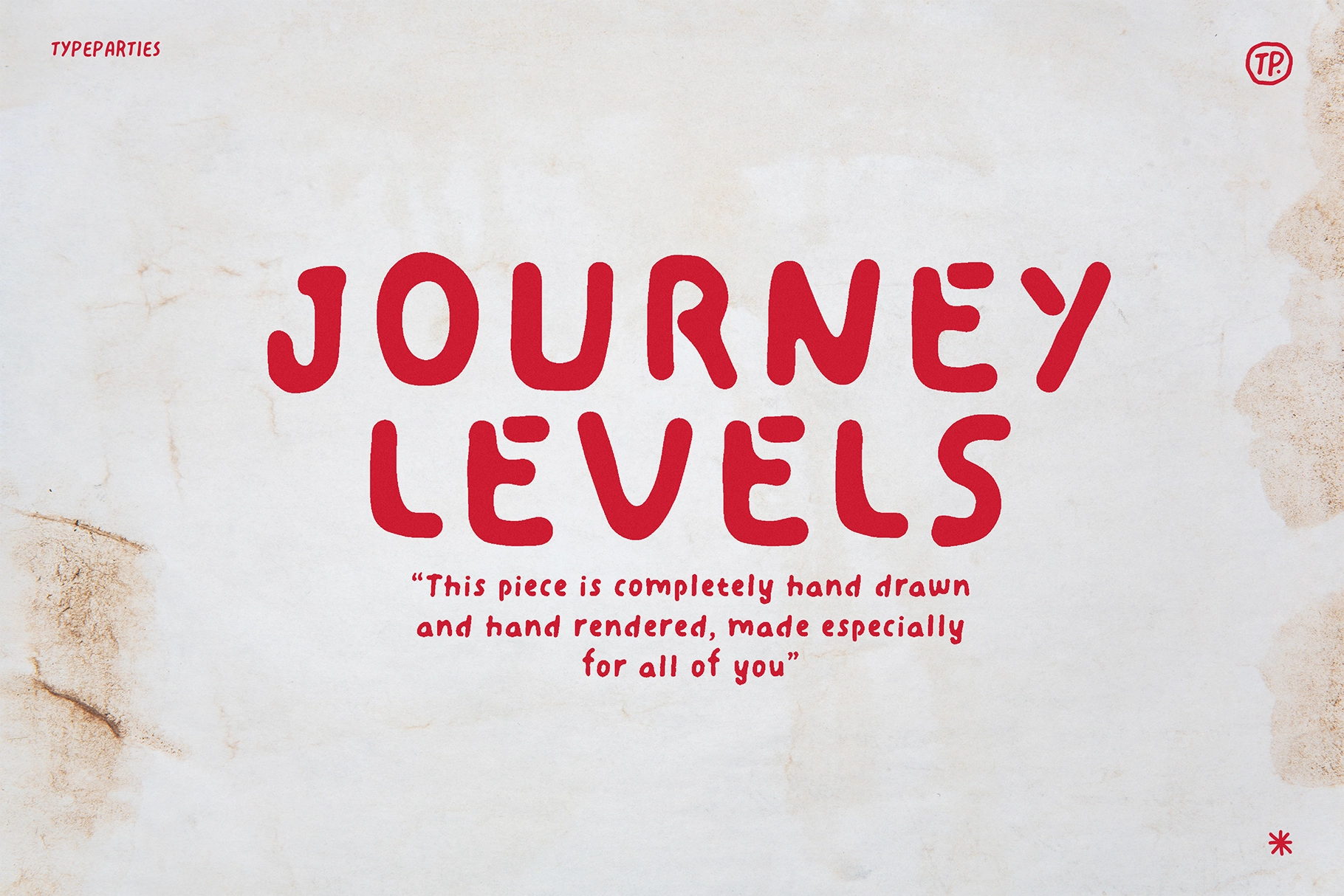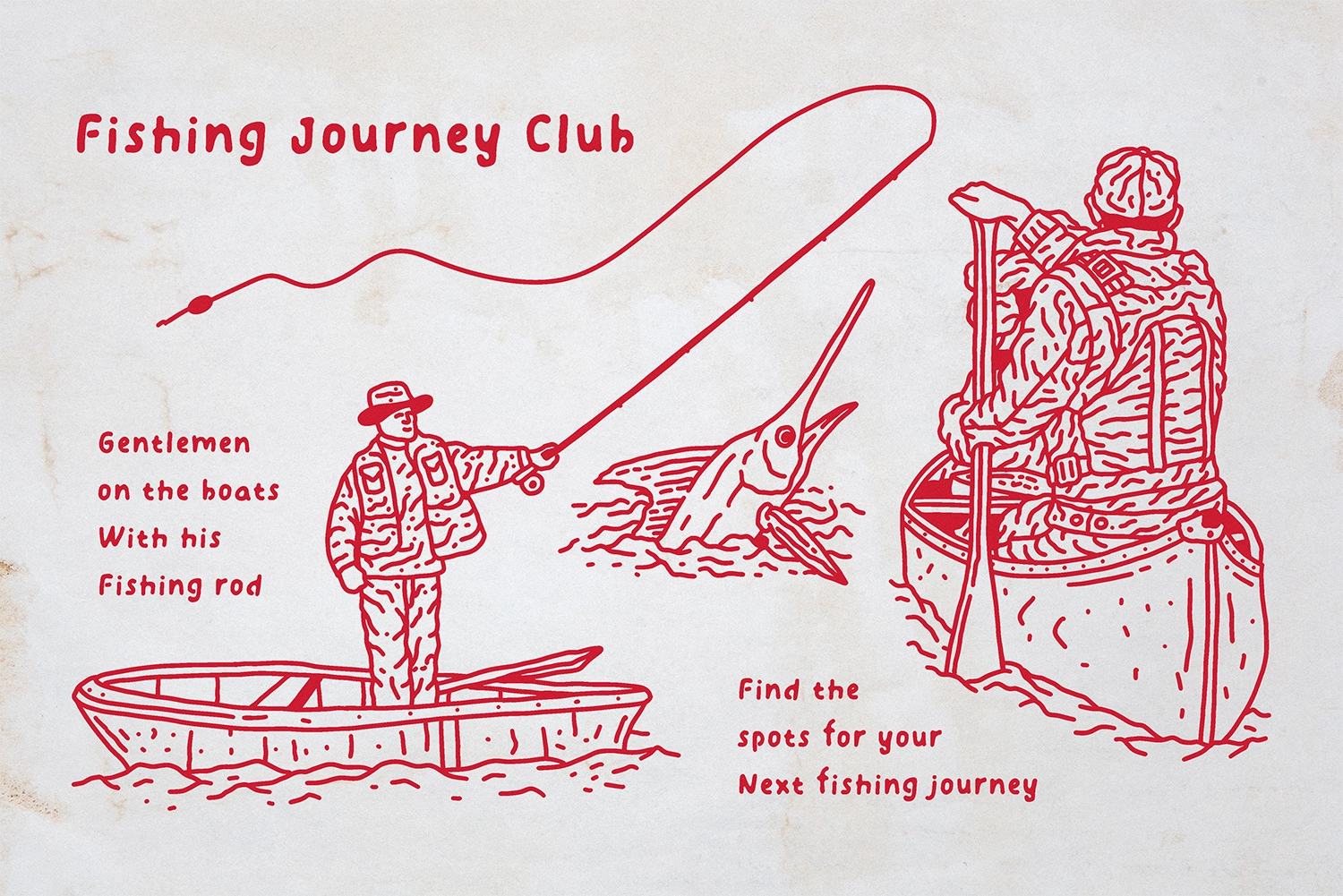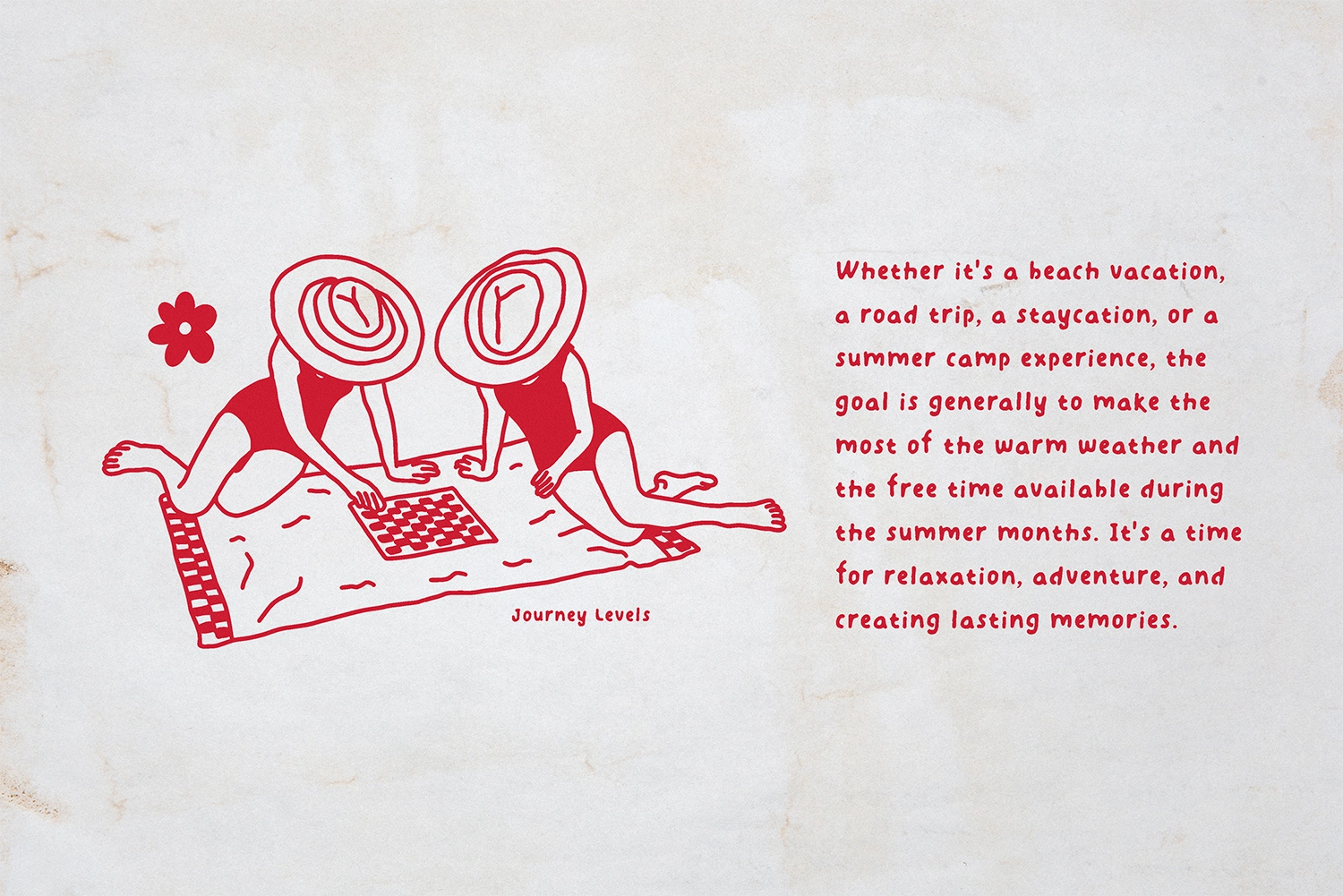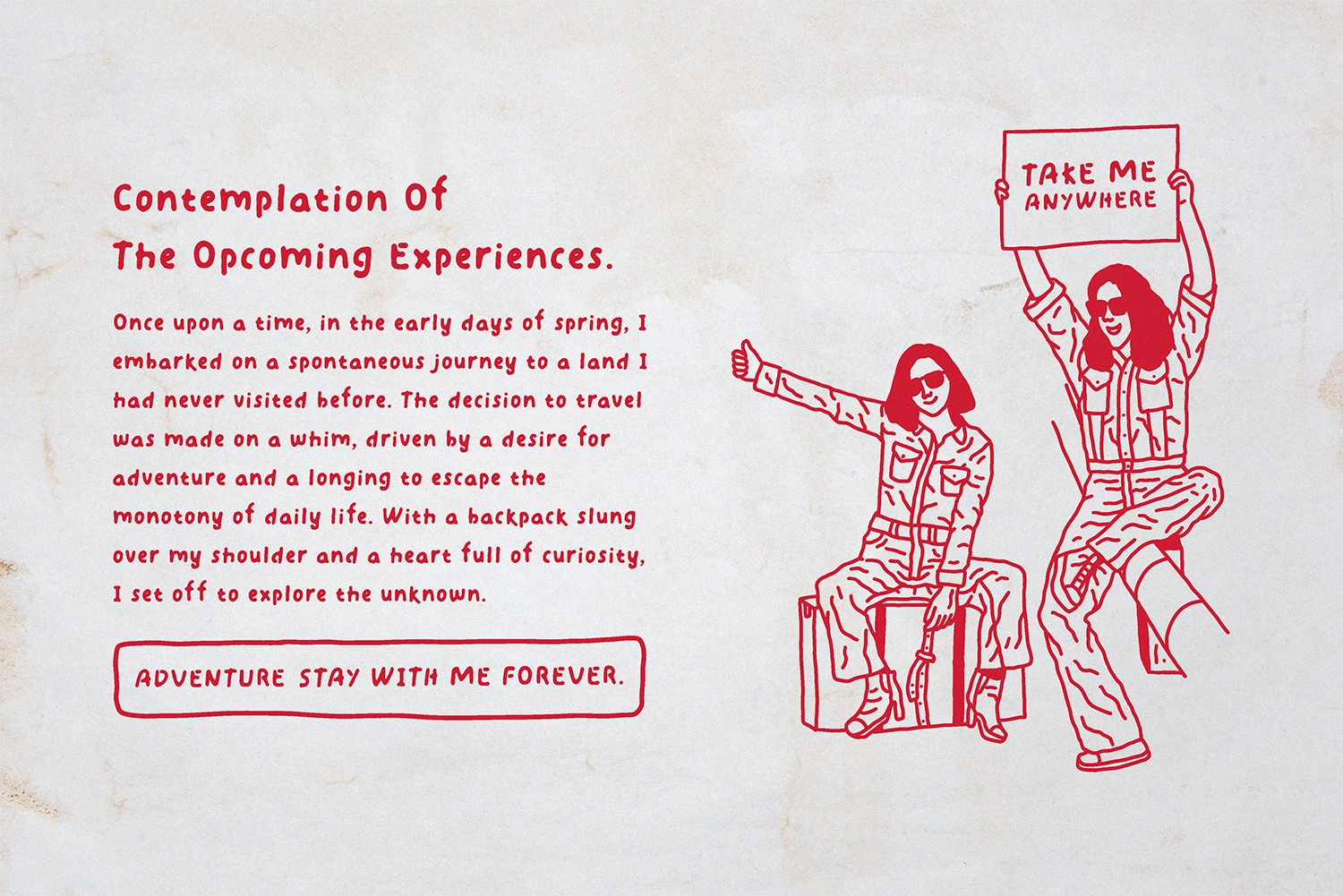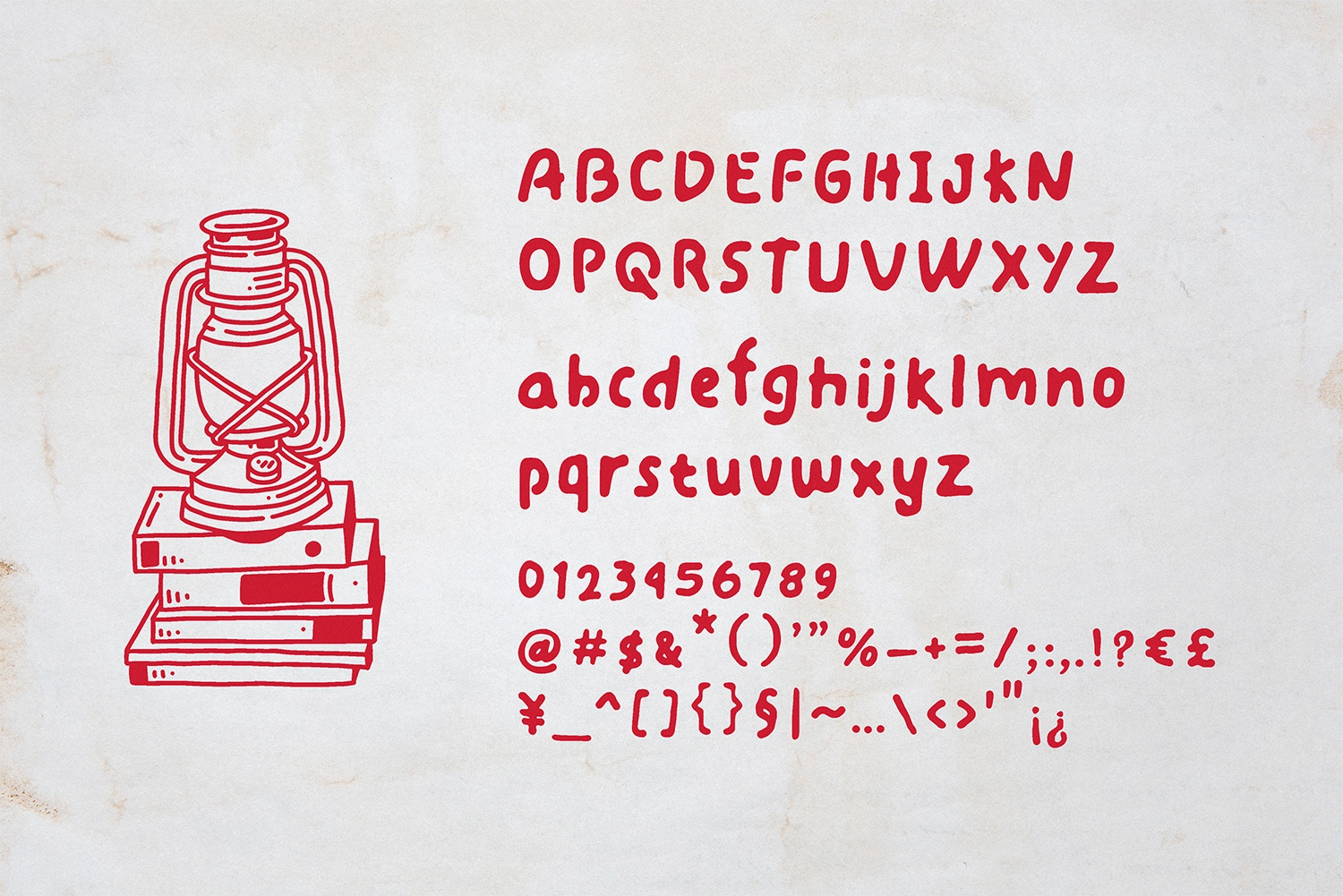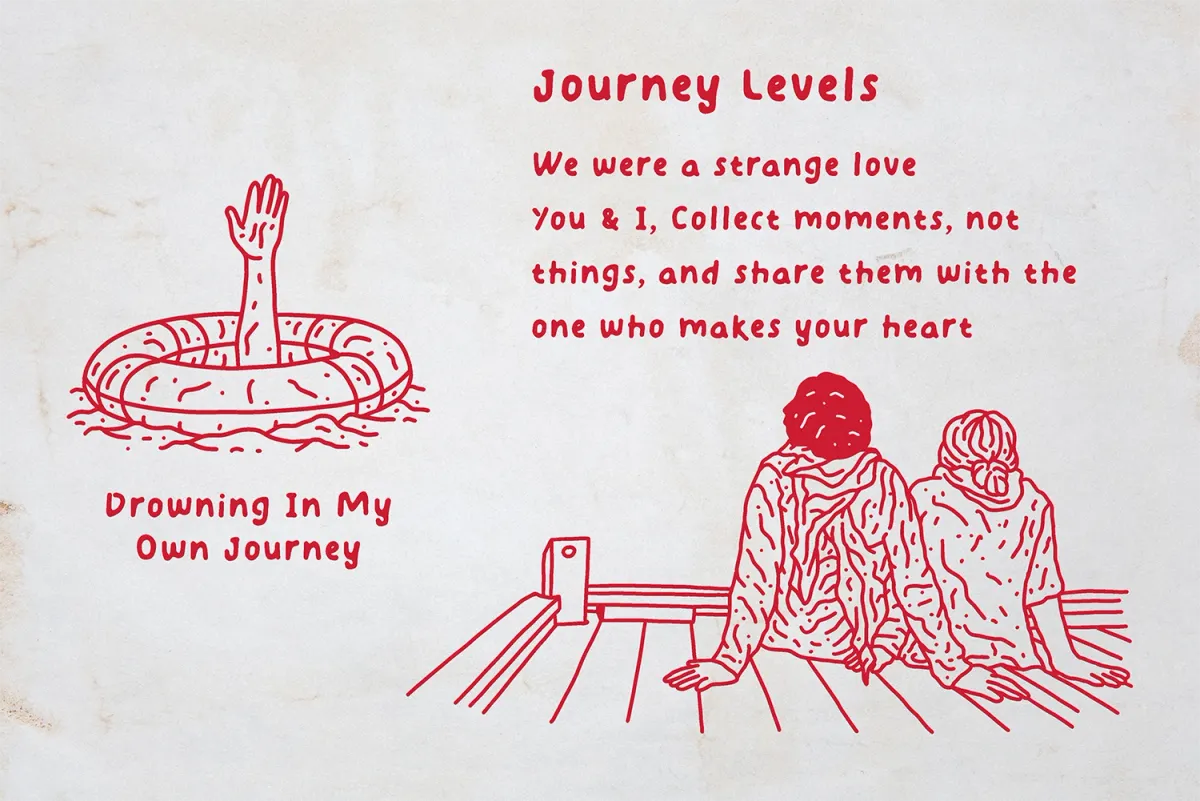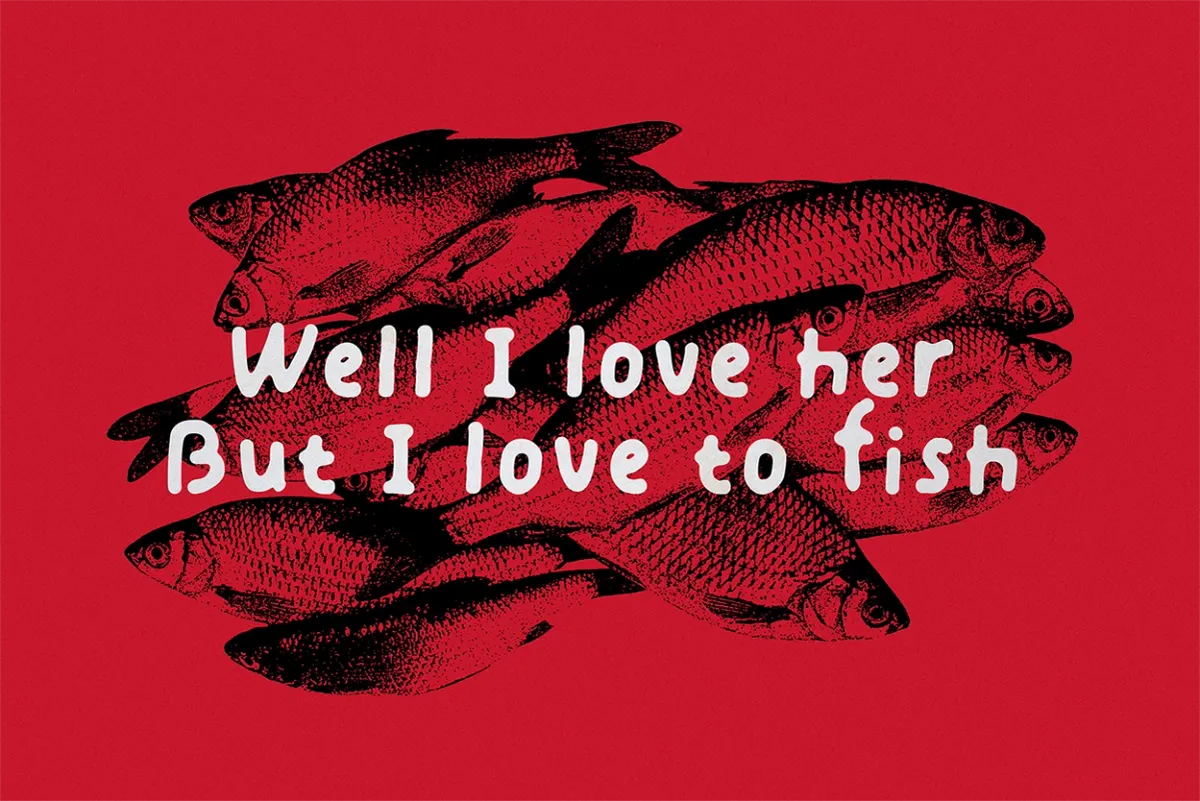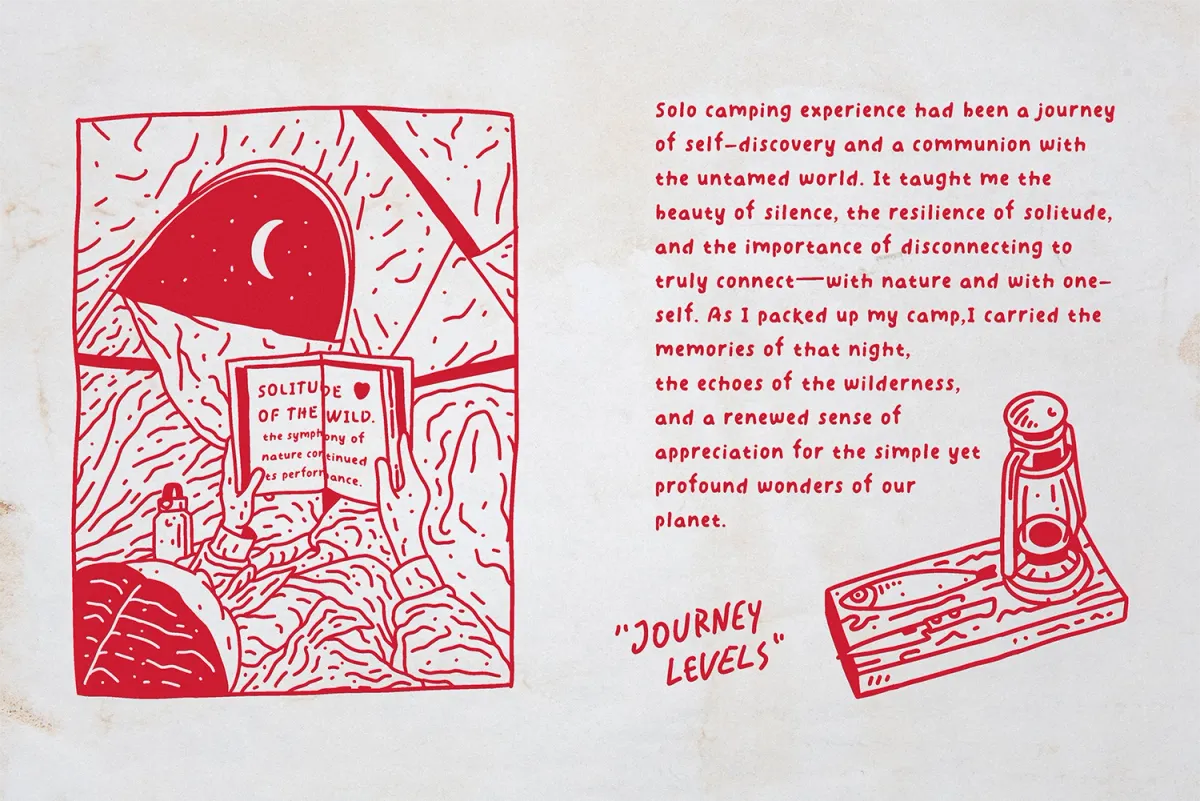
Journey Levels - Handwritten Font
This handwritten font called Journey Levels, exudes a warm and personal touch. With its soft, rounded edges and playful irregularities, it clearly reflects its hand-drawn and hand-rendered nature. The letterforms are bold and organic, with varying stroke widths that give it a human, expressive character.